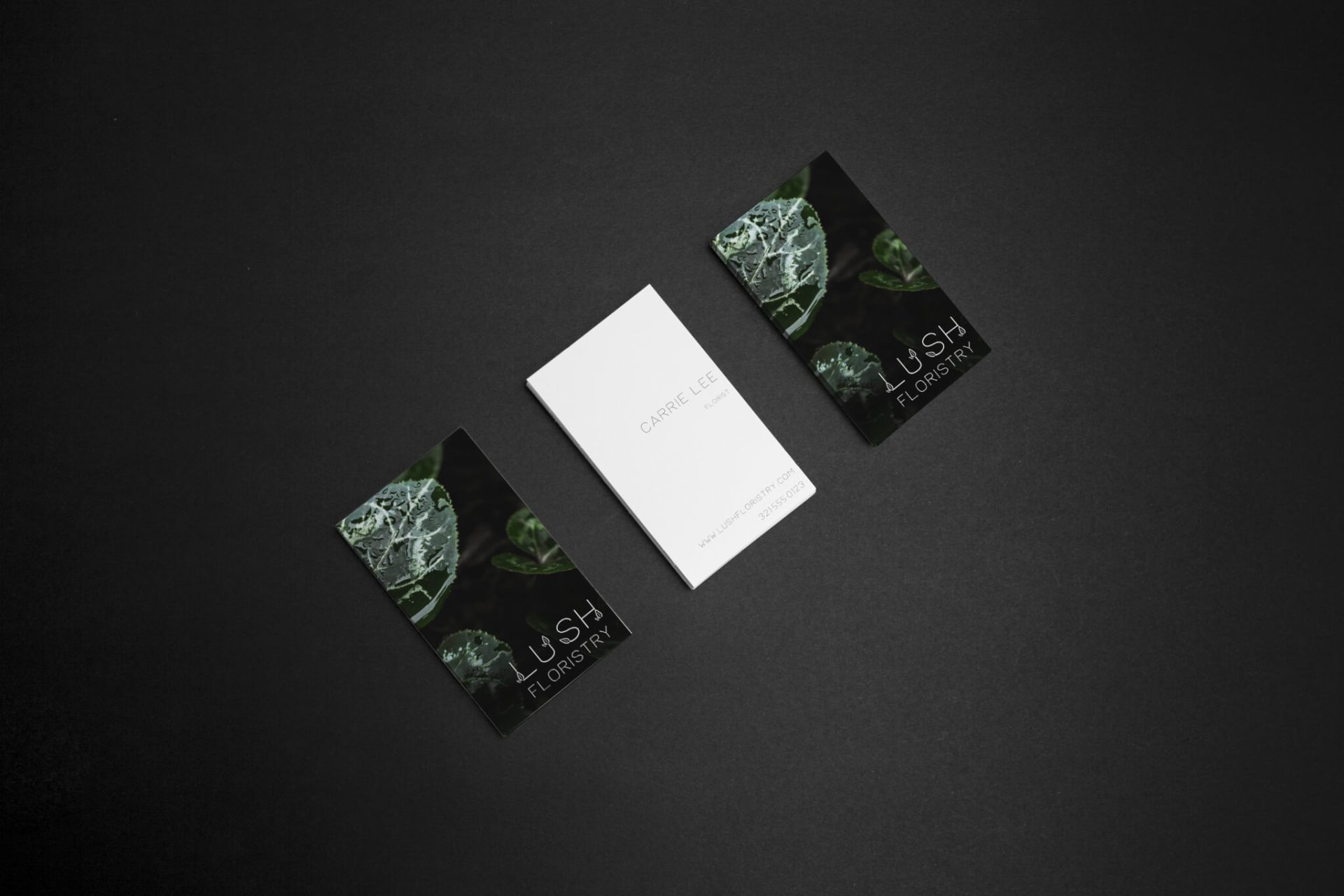
Lush Typeface is an all-caps font with each lowercase letter features a sweet leafy detail. Lush would be a perfect fit for a health-conscious brand, or a brand based in organics and natural products. Each of the leaf details is clean + crisp, which gives it an excellent minimalist look & feel.
Because Lush Typeface is an all-caps font, the lowercase characters have been programmed with the leaf details, so you won’t need to do anything special to access those lovely characters!
– numbers and punctuation